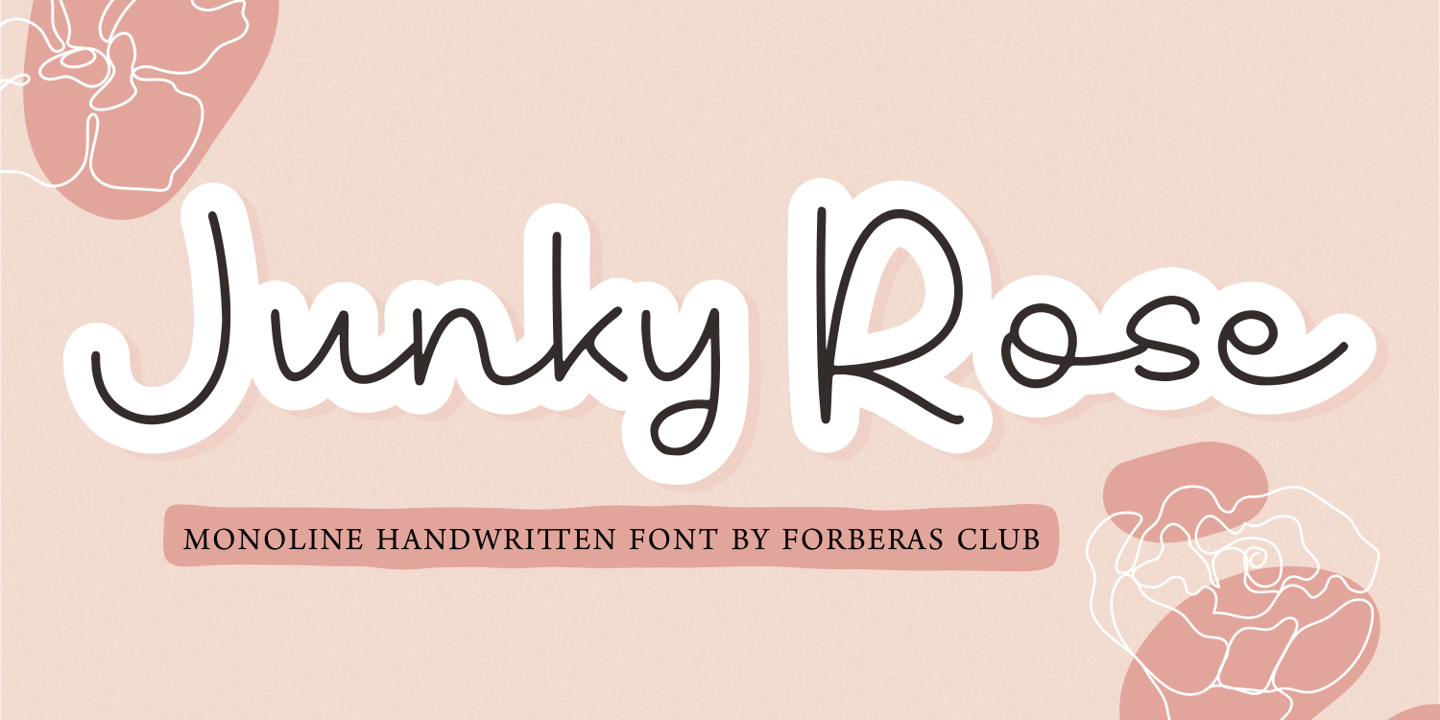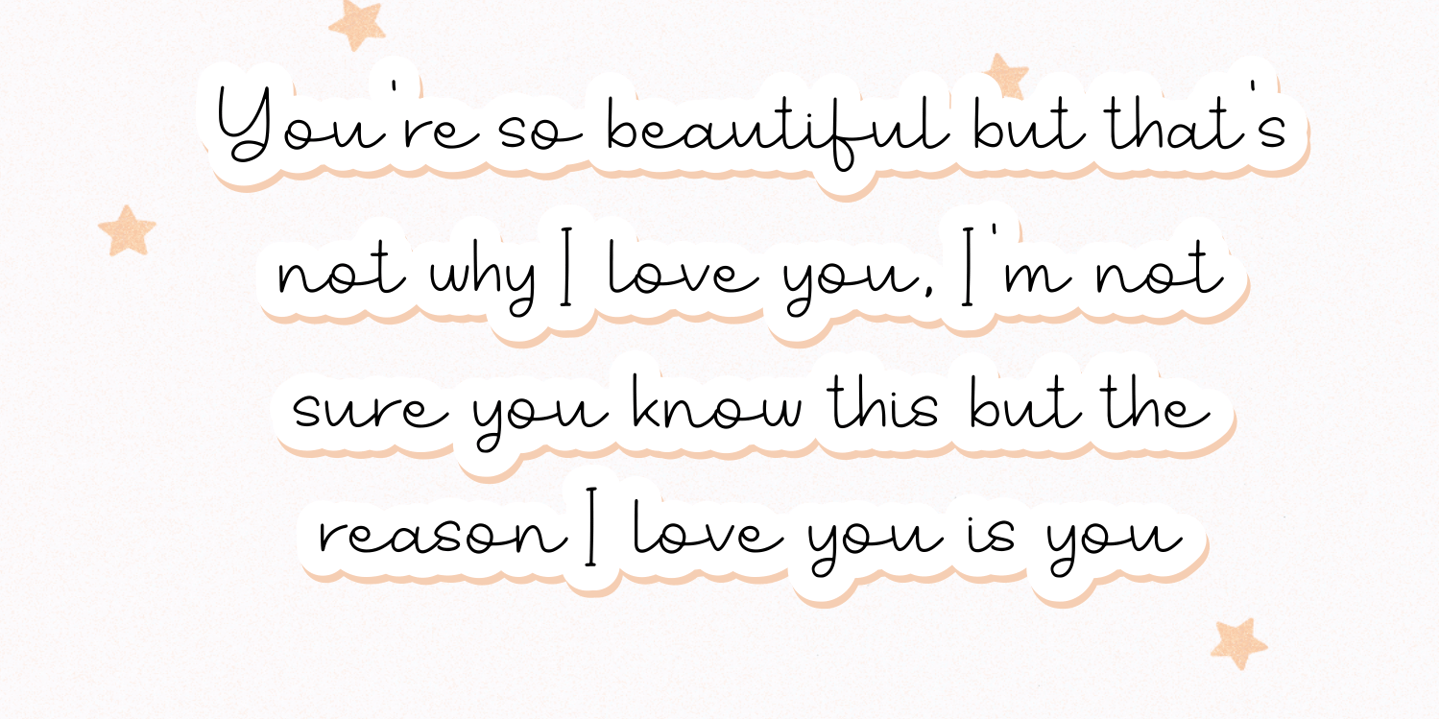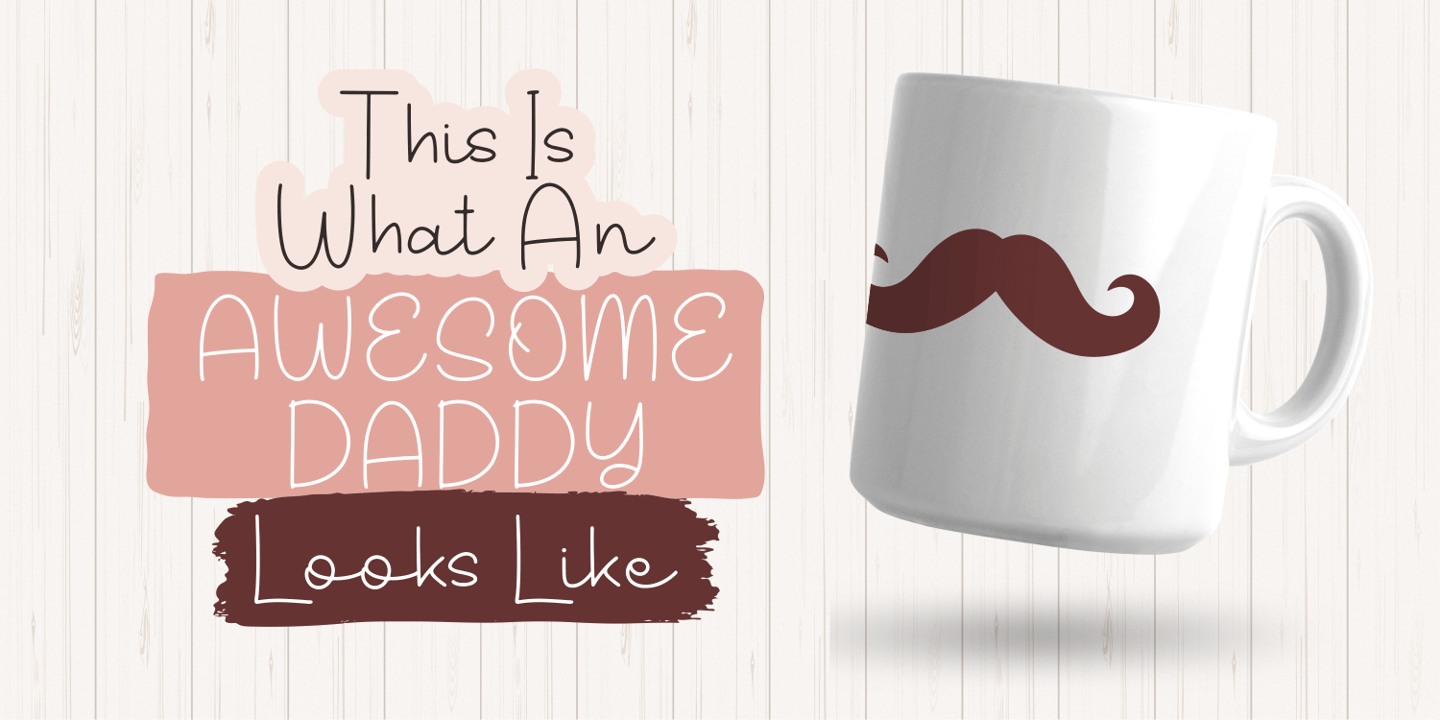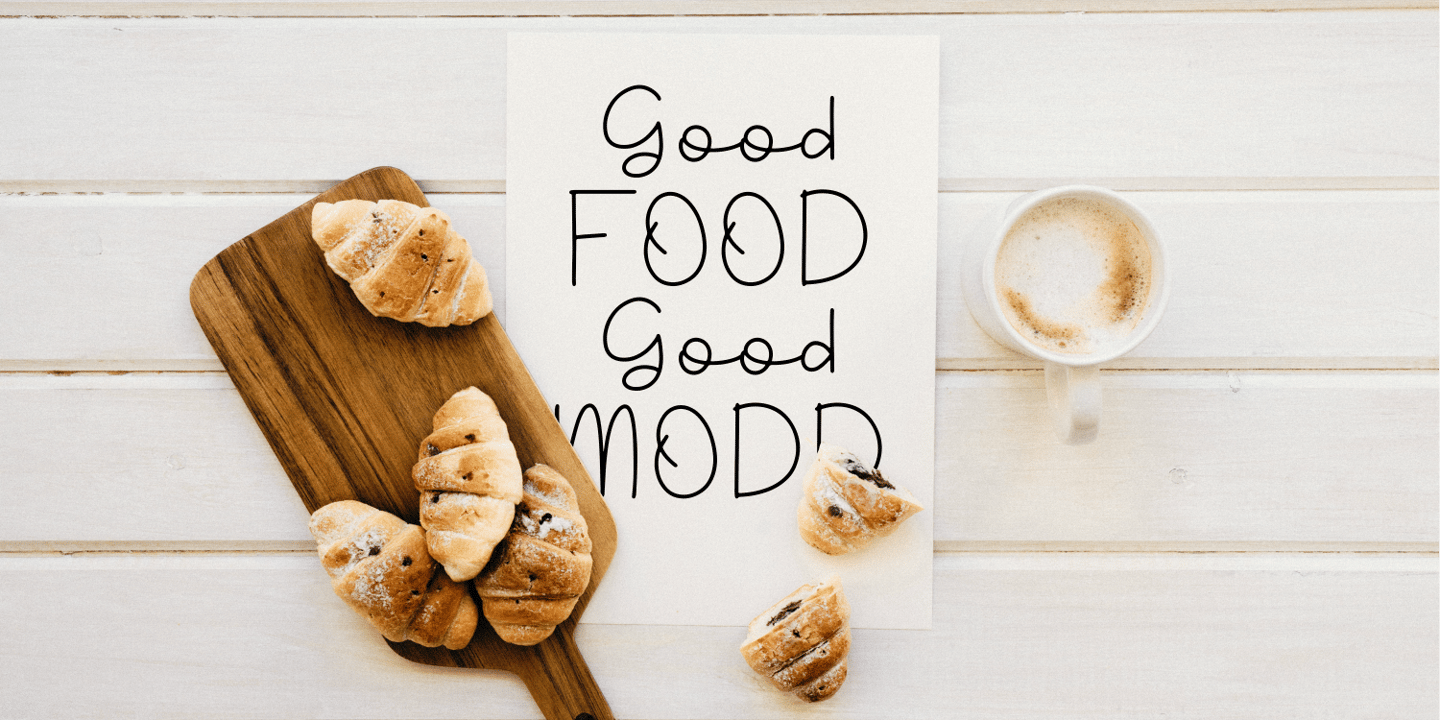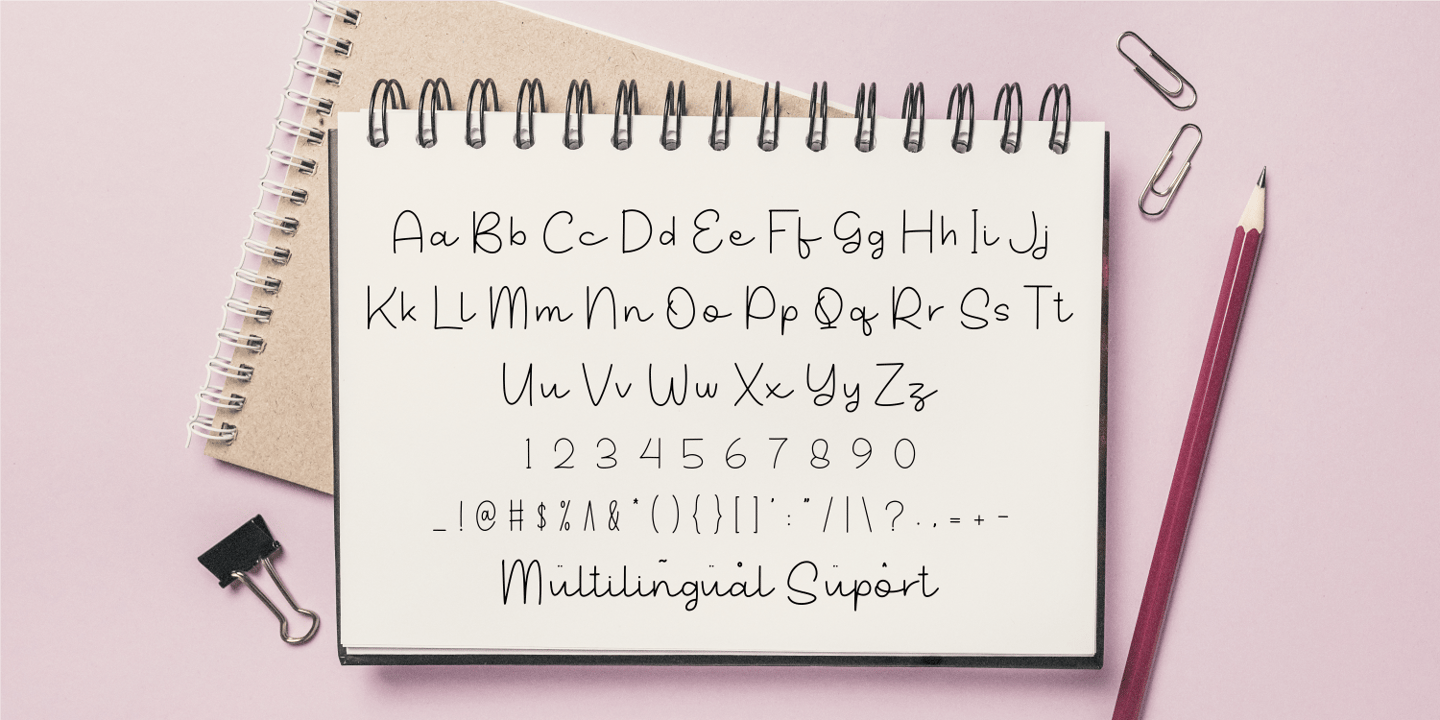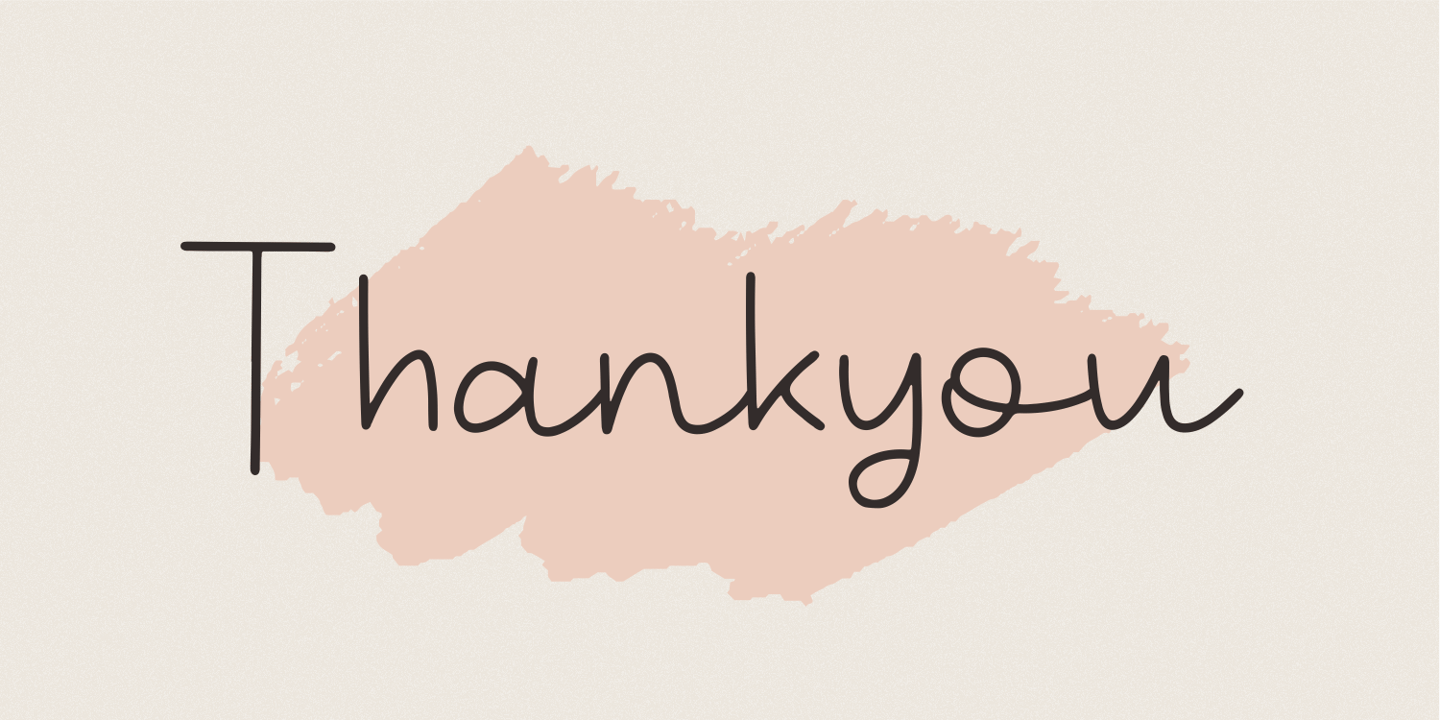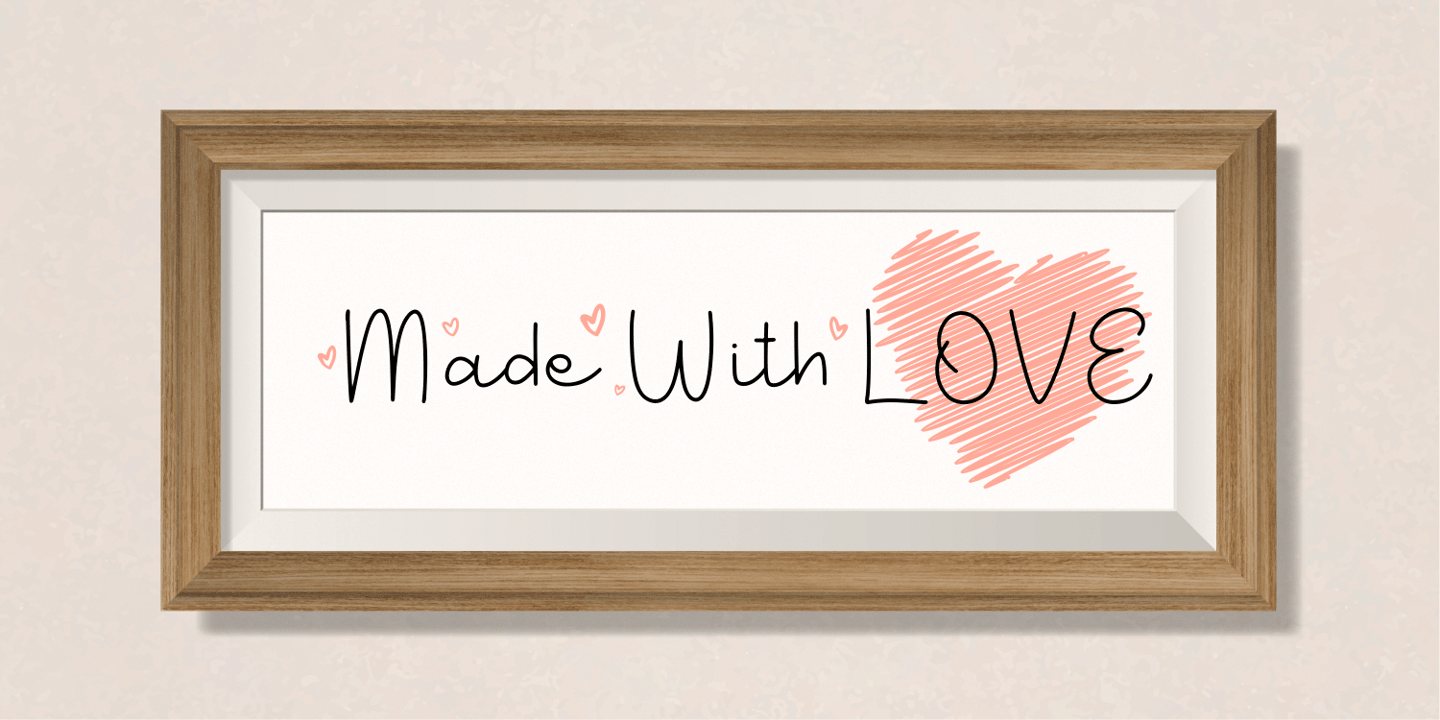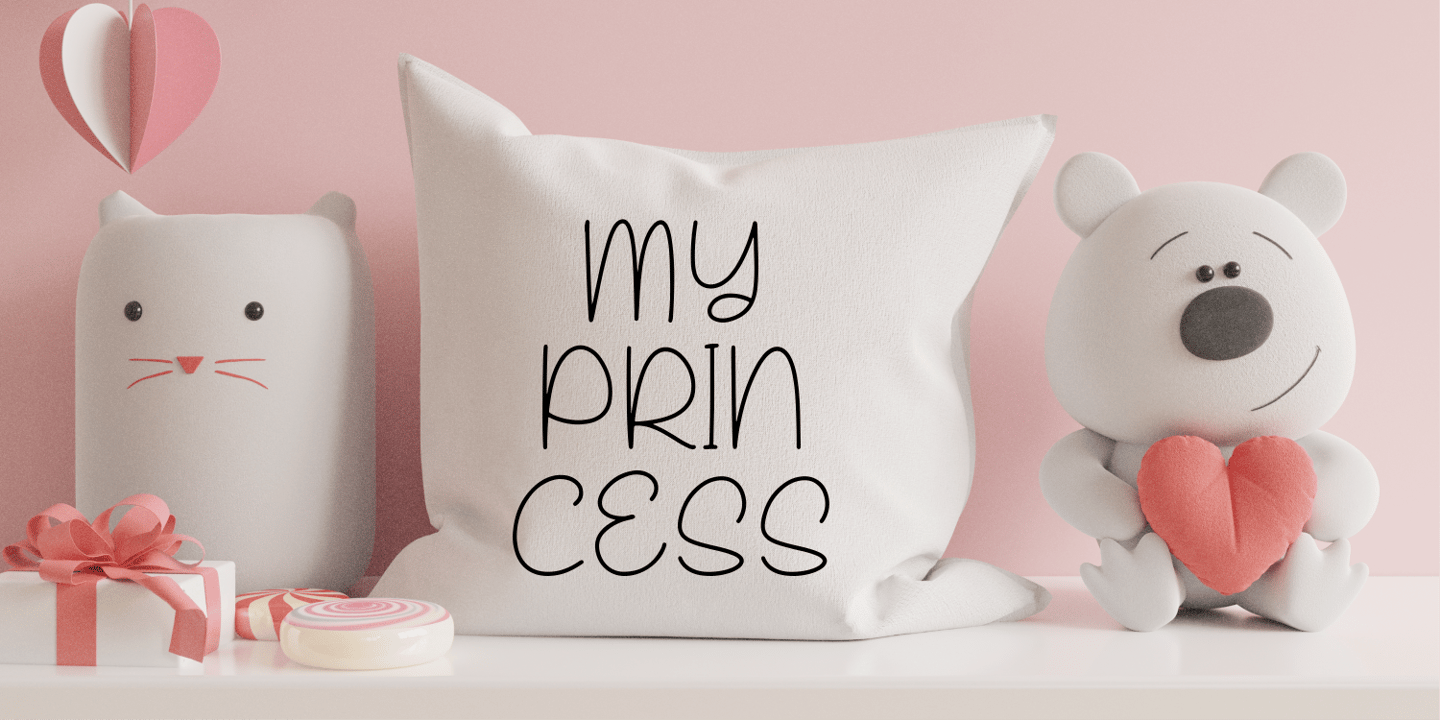
Introducing Junky Rose by Forberas Club
Junky Rose is a Handwritten Script font that will make your designs look classic, Farmhouse, Boho, and Feminine. It is a great font for events, Wedding Project, fashion, apparel projects, signature, album covers, logos, branding, magazines, social media posts, advertisements, but it also works great for other projects. Add it to your fonts’ library, and it will enhance your creativity!
Junky Rose is best for:
- logos, branding, & Signatures.
- Flyers, Album cover, Magazine, & Advertisements.
- Website design , design blogs, & fashion.
- Quote graphics for social media. - and also it works great for other projects.